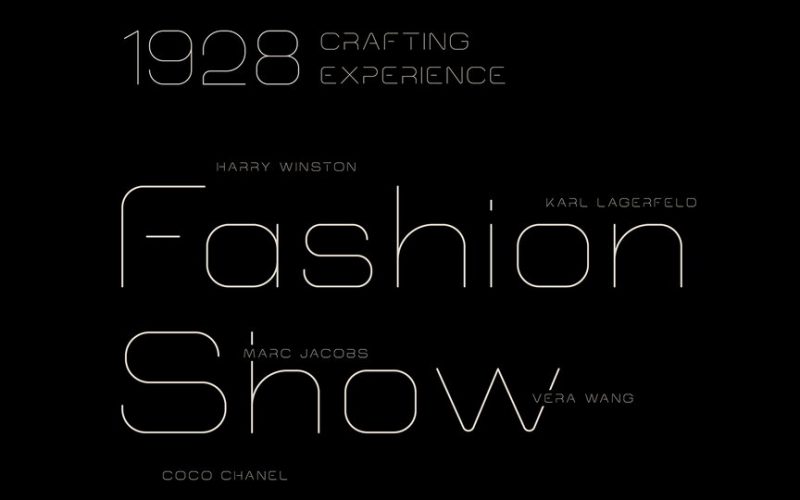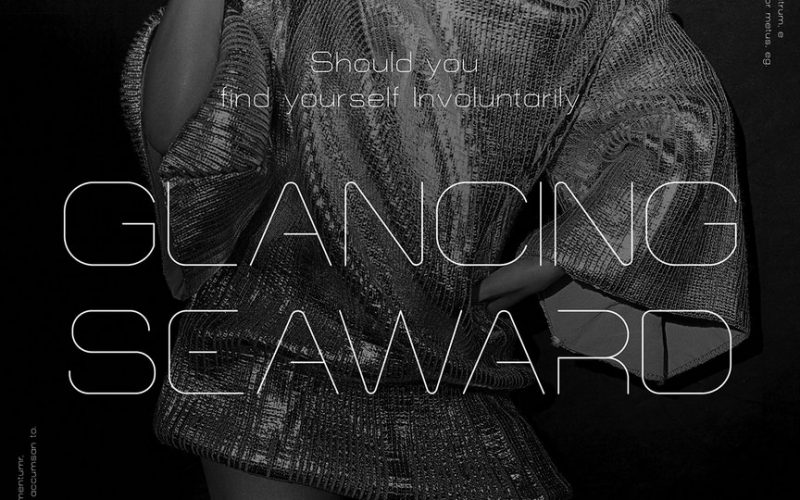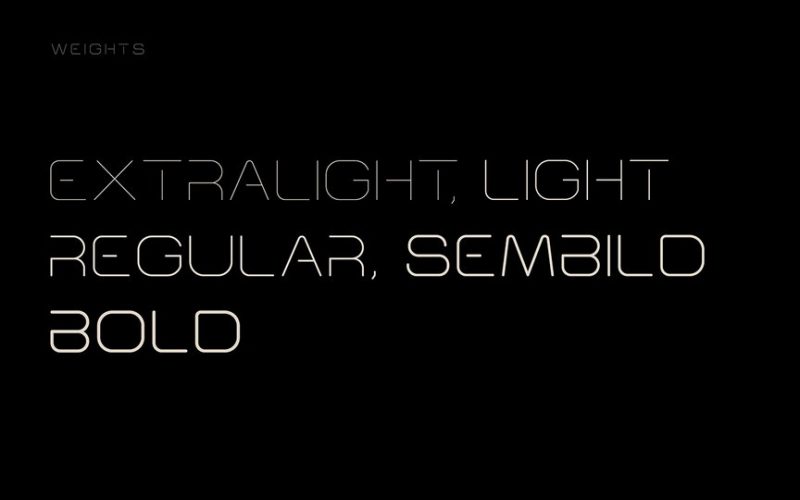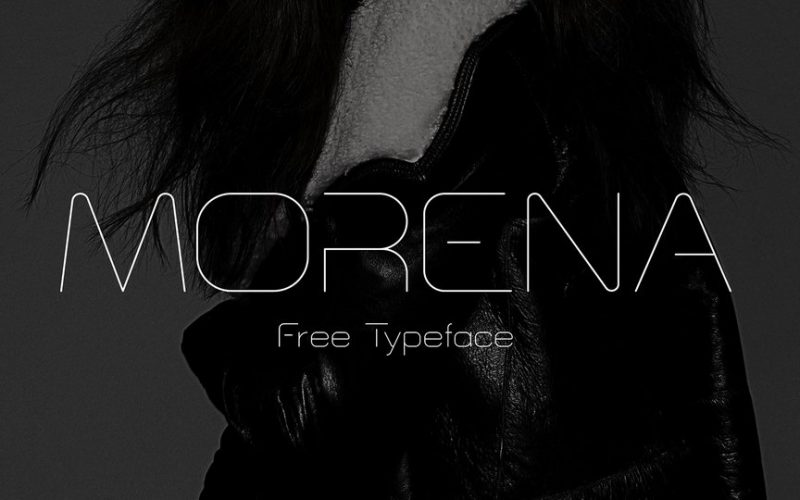
Morena Typeface
Introducing Morena Typeface! Thank you for looking this font. This a simple, clean and elegant sans serif, combines with updated, clean letterforms. Something flexible enough we could use it on anything while still retaining enough character to be instantly recognizable.
This minimalistic and modern all-caps serif typeface . With upper case characters, numbers and punctuation. Perfect for gorgeous logos & titles, Fearce will pair cool with many fonts and work well with whatever project you’re working on.